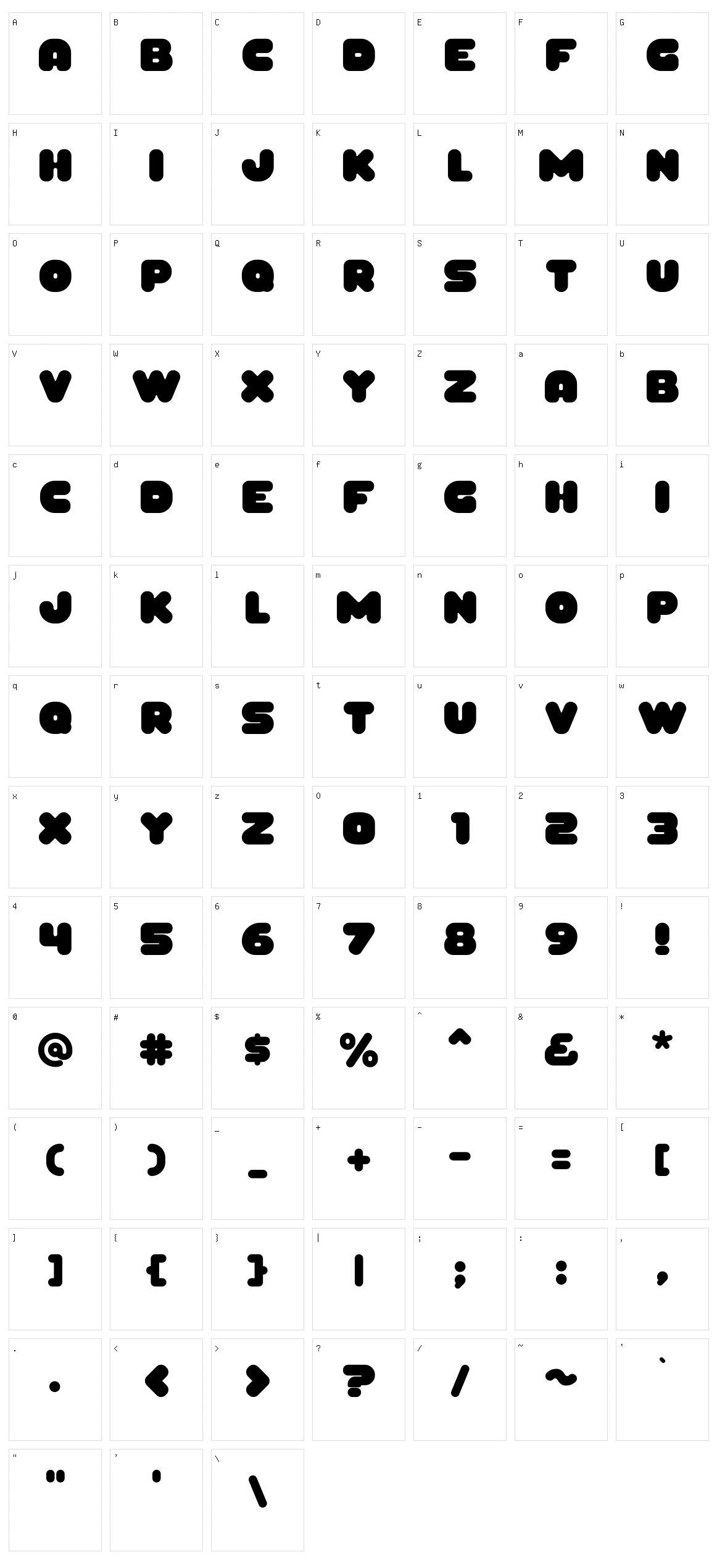
The free font Yeyey is carefully designed by Don Marciano, showcasing a thoughtful balance of creativity and usability and falls under the Groovy font style. When you download the ZIP file, it contains only 153.18 KB of font files, making it lightweight and quick to download. Please review the license details below to understand permitted usage and distribution rights. If license information is not available, we recommend using this font for personal projects only or contacting the author directly for commercial usage permissions.